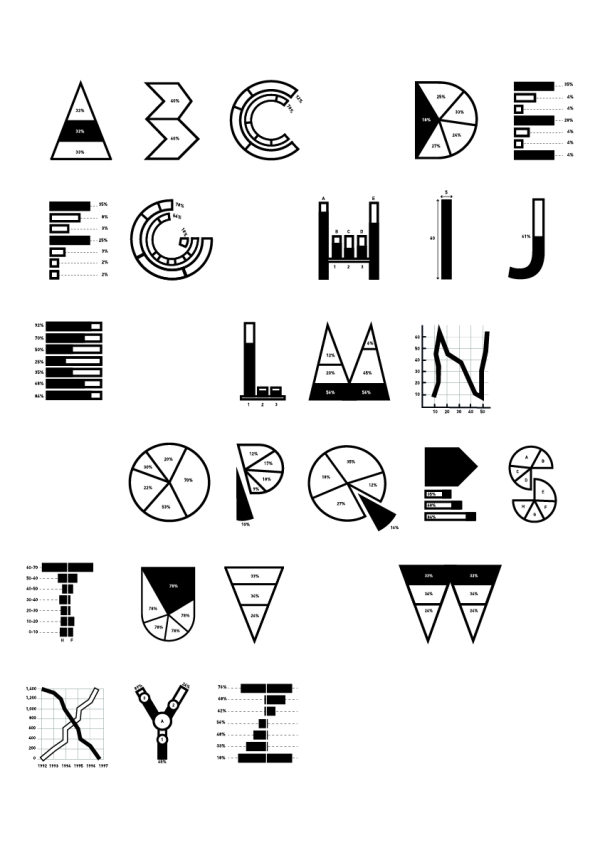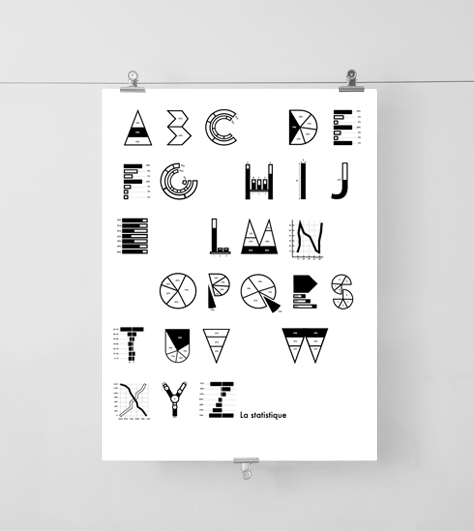
La Statistique
“ La Statistique ” is a smart, fun and creative font. It was inspired by the world of wordwide market and stock exchange.
Designed by Sébatien M and Timothée Midy.
Designer: timothée midy
Publisher: timothée midy